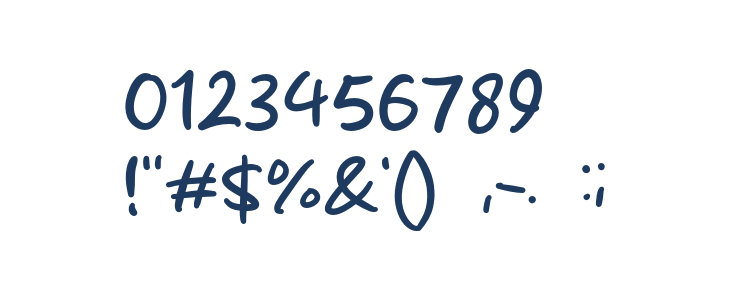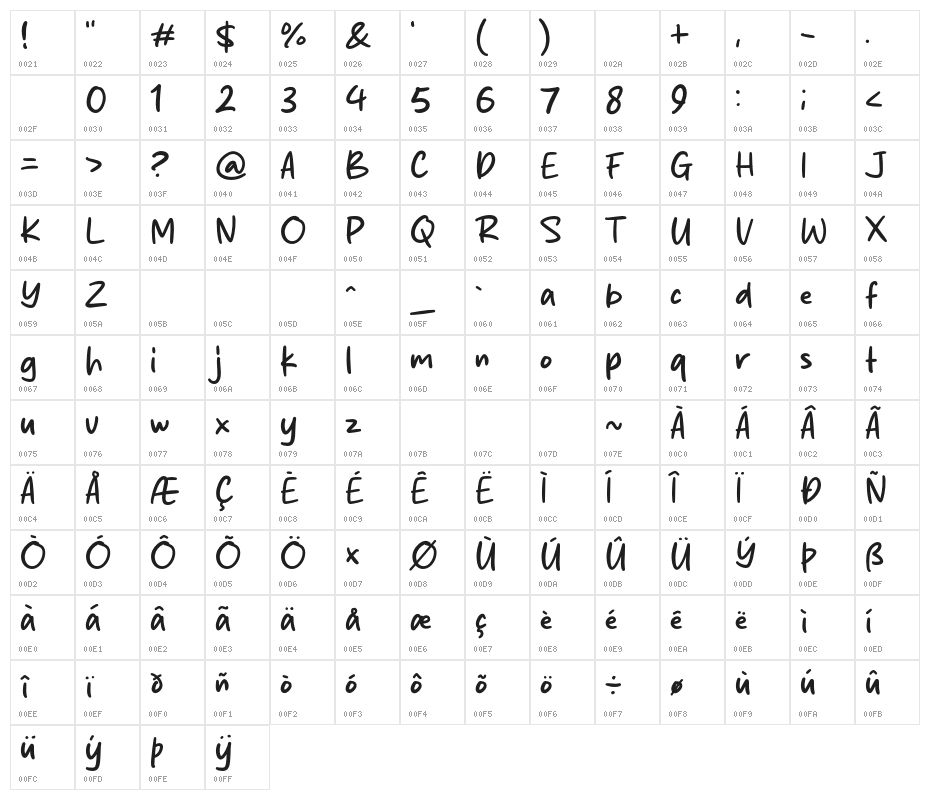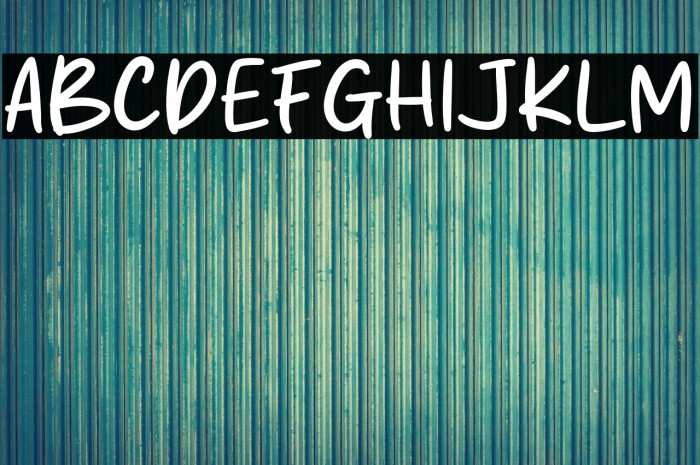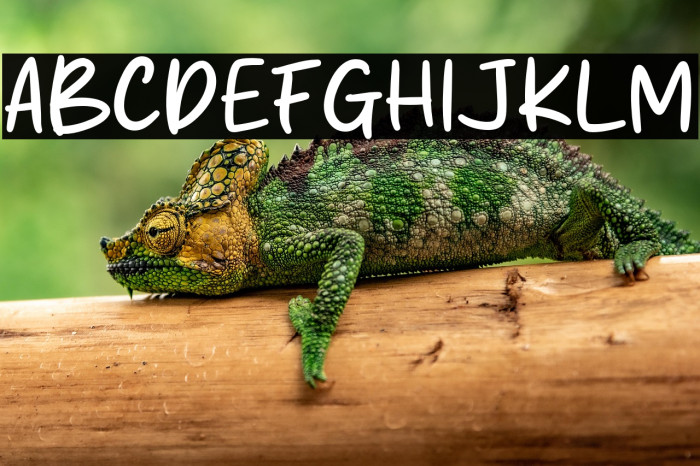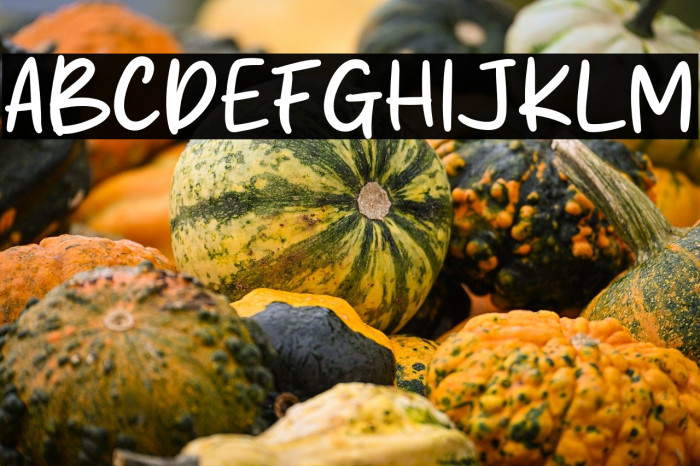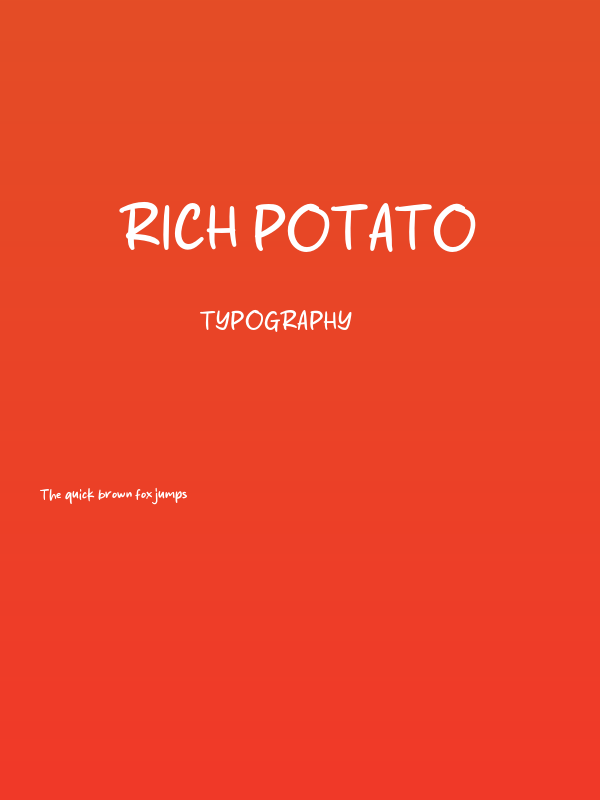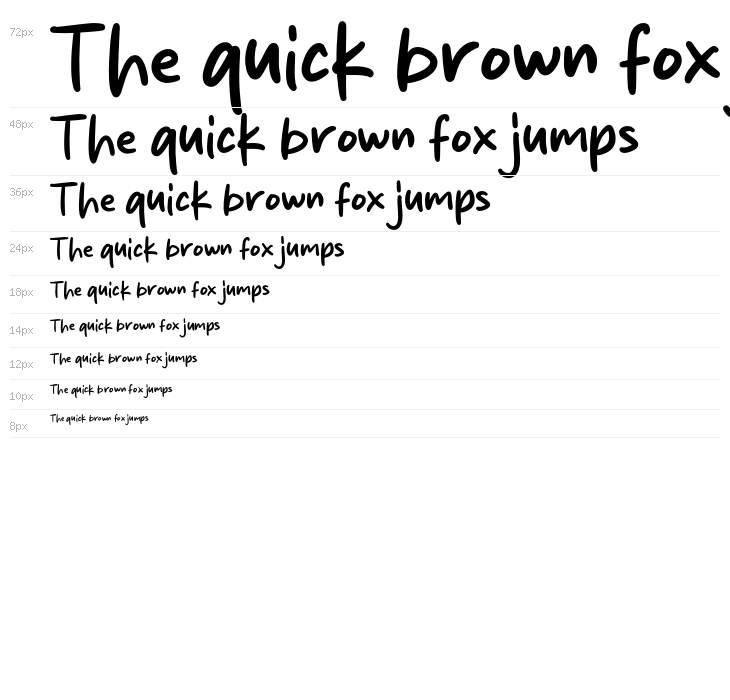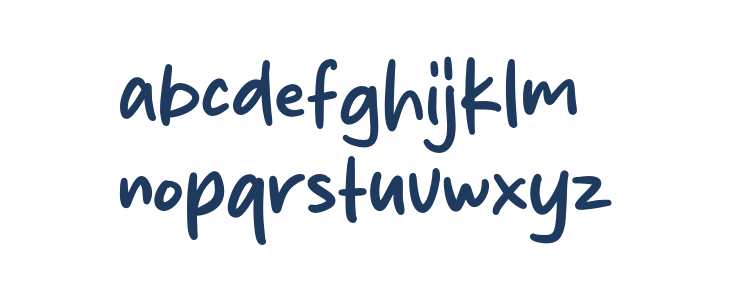
Rich Potato Font
Rich Potato Description
This font features a playful and casual handwritten style, characterized by its bold and rounded strokes. The letters are slightly slanted, giving it a dynamic and energetic appearance. The uppercase and lowercase letters maintain a consistent flow, while the numerals and special characters complement the overall aesthetic. The font's informal nature makes it ideal for projects that require a personal touch or a friendly tone. Its readability is enhanced by the clear distinction between each character, making it suitable for both digital and print media.
| Use Case | Logos, Headlines, Informal Text |
| Proposed Projects | Ideal for greeting cards, children's books, casual branding, and social media graphics. |